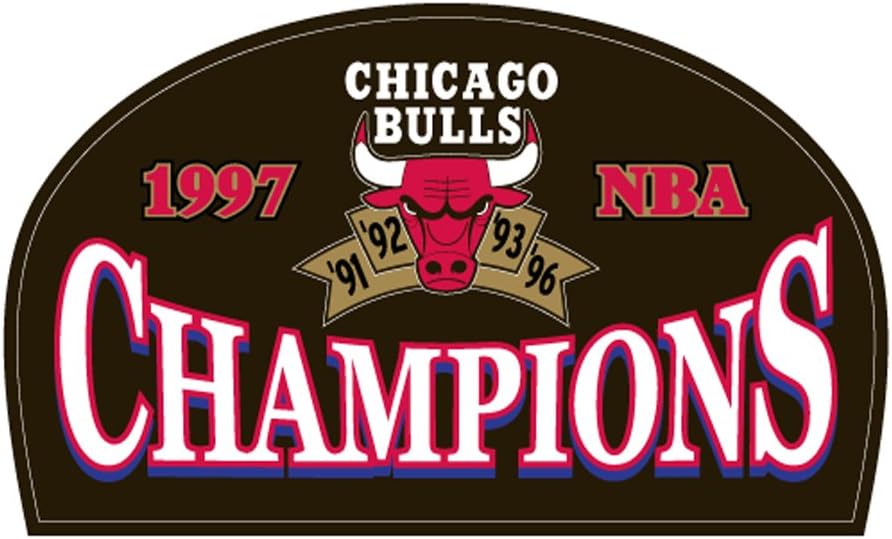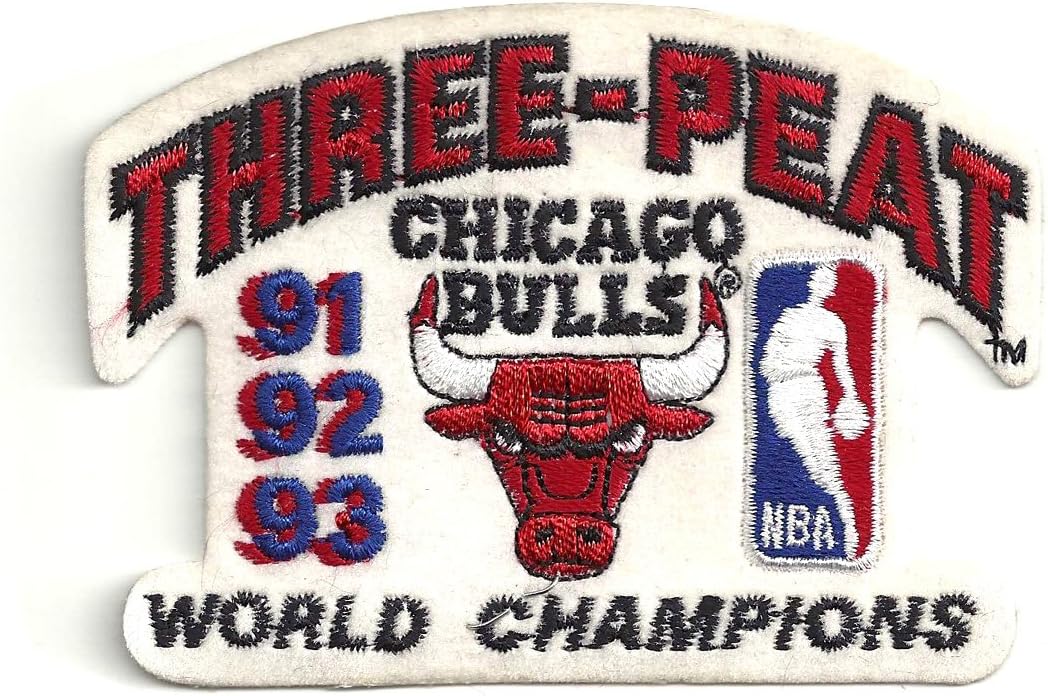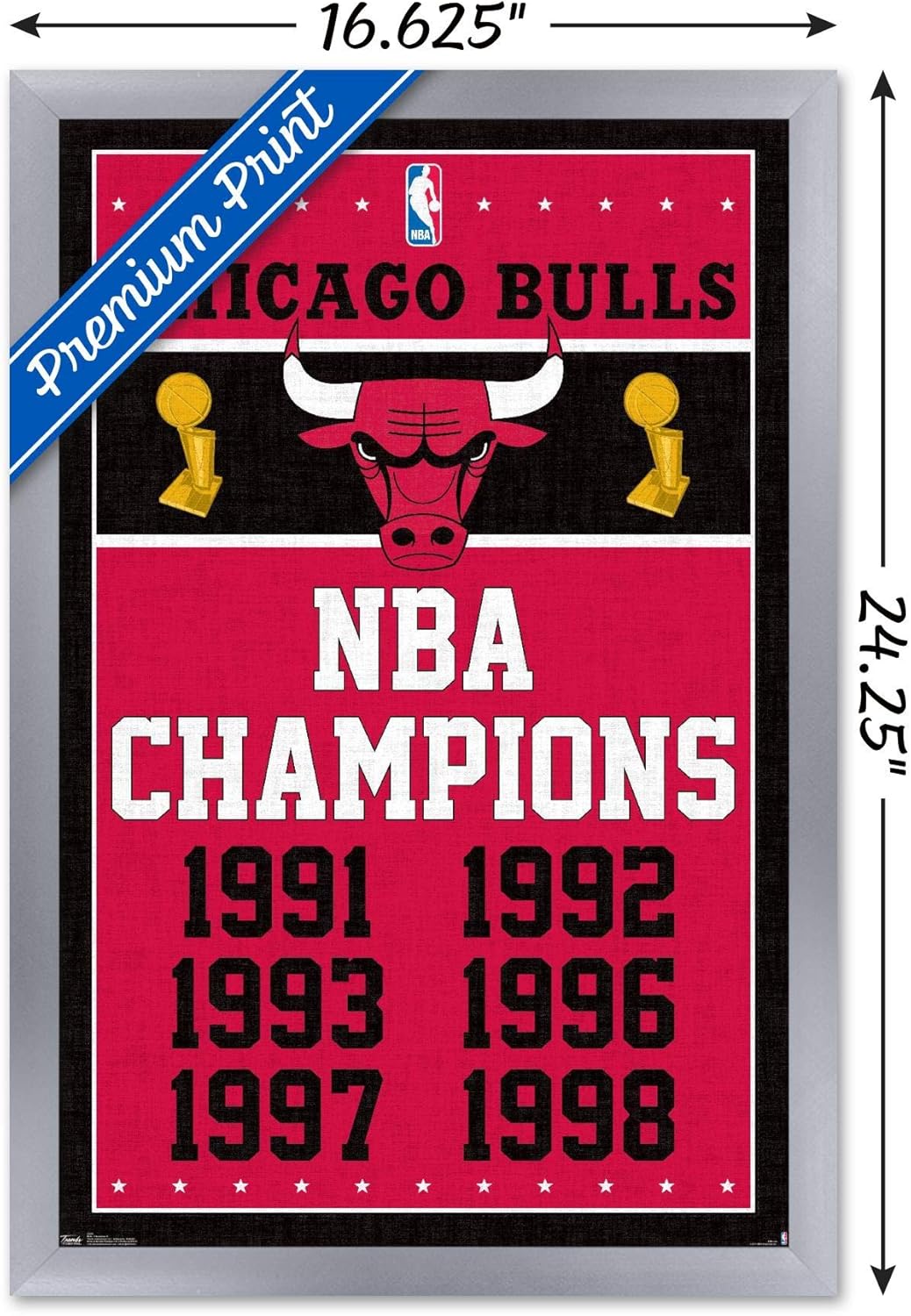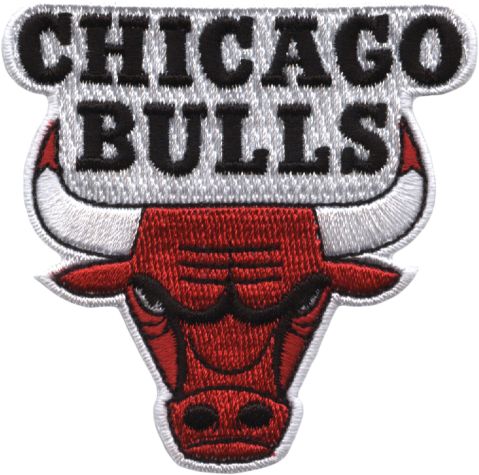
Logo Chicago Bulls Font
The Bulls have many iconic or classic logos and their wordmark is one of them The Bulls have used the font Stymie Black since 1966. The font used for Chicago Bulls logo is very similar to Stymie Black, which is a geometric slab serif font designed by Morris Fuller Benton and published by URW. The Cubs are one of two major league teams in Chicago, the other being the Chicago White Sox The current team logo, which has been in use since 1979, features a large red “C” inside a thick blue circle, with the “UBS” inside the initial “C”.
Oct 16, 19 #bulls #chicago #coloring #pages # Check more at https//bopeepclub/chicagobullscoloringpages/. The “CHICAGO BULLS” text on the endlines has been changed to the font used in the official Bulls logo to make the court design more consistent with the Bulls brand, and the same font has been. Bulls branding featured on the.
Colors of the Chicago Bulls Logo The red color in the Chicago Bulls logo symbolizes passion, power and courage, whereas the black color stands for excellence, dominance and elegance Font of the Chicago Bulls Logo The Chicago Bulls logo uses a custommade typeface. The NBA Bulls font contains 66 beautifully designed characters ️ Customize your own preview on FFontsnet to make sure it`s the right one for your designs. NBA Bulls refers to the font used in the lettering of Chicago Bulls jersey This is not the official font and only resembles the font used for lettering, numbers, and player names The numbers & letters were originally created by Nick Whitford and Dennis "LMUpepbander" Ittner The TTF fonts were created by Eriq P Jaffe.
Dec 2, Explore Chris Basten's board "Bulls Logos", followed by 121 people on See more ideas about bull logo, logos, bull. NBA Bulls Regular Macromedia Fontographer 4 1 NBA Bulls Macromedia Fontographer 4 1 3/17/07 NBABulls. Chicago bulls logo PNG image Download as SVG vector, Transparent PNG, EPS or PSD Use this Chicago bulls logo SVG for crafts or your graphic designs!.
The Chicago Bulls joined the NBA in the season The Bulls logo and font type has remained exactly the same since the first year. Suggested font Stymie Black Suggested by fmontpetit #2 fmontpetit Quote Sep 09, 13 at 1440 Suggested font Stymie Black All times are CET The time is now 0434 Reply Newer Topic Older Topic. Colors of the Chicago Bulls Logo The red color in the Chicago Bulls logo symbolizes passion, power and courage, whereas the black color stands for excellence, dominance and elegance Font of the Chicago Bulls Logo The Chicago Bulls logo uses a custommade typeface.
CHICAGO BULLS FONT #1 dopeparadox Quote Sep 09, 13 at 1406 what is the font used here?. Download Chicago font free in ttf format for Windows and Mac We have thousands of free fonts available for you. Chicago Bulls logo vector Download free Chicago Bulls vector logo and icons in AI, EPS, CDR, SVG, PNG formats.
3 Font The font present in the Bulls logo is meant to be intimidating, yet still professional A custom serif typeface, the Chicago Bulls logo font is present on all of the brand’s merchandise That ranges from jerseys and shorts to basketballs and hoops. The Bulls announced subtle changes to the United Center floor for the upcoming season, including a larger midcourt logo and an ode to the Chicago flag The iconic midcourt logo has increased in size by 75 percent, according to a press release from the team, and the basketball behind the logo has been removed The "Chicago Bulls" font on either baseline has been changed to match the font of the. NBA Bulls Font Download (Chicago Bulls Font) Fonts4Free NBA Bulls font, aka Chicago Bulls font is a fancy, oldschool font designed by Eriq P Jaffe NBA Bulls font is free for both personel and commercial usages Lakers Number Font General Design Chris Creamer's.